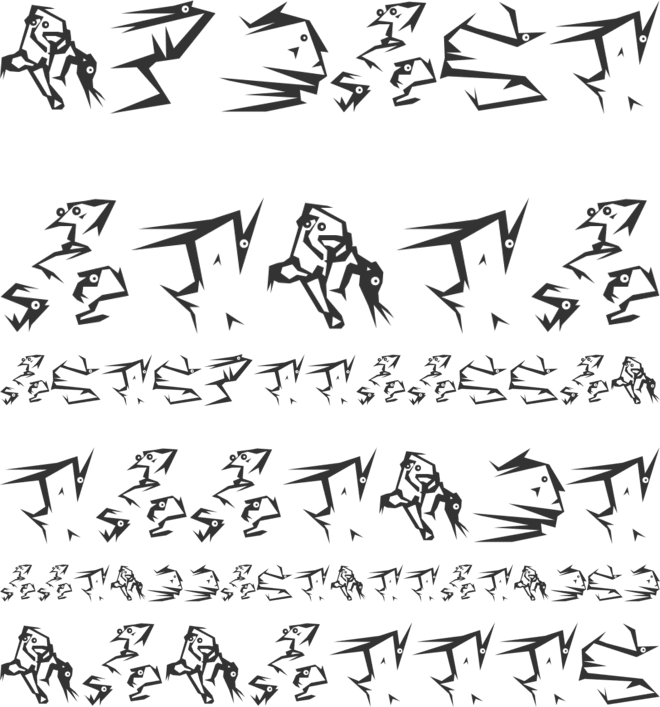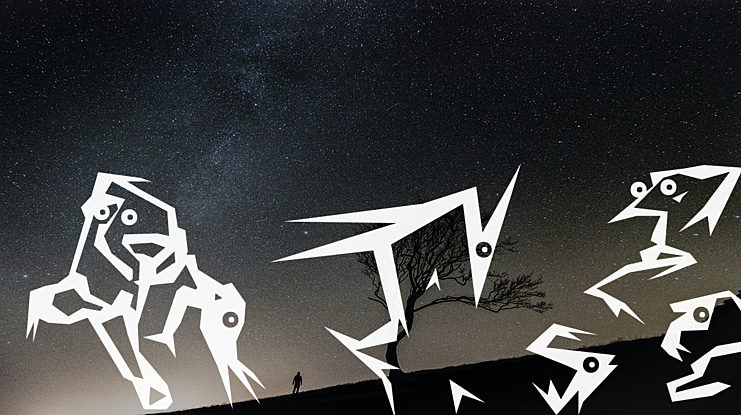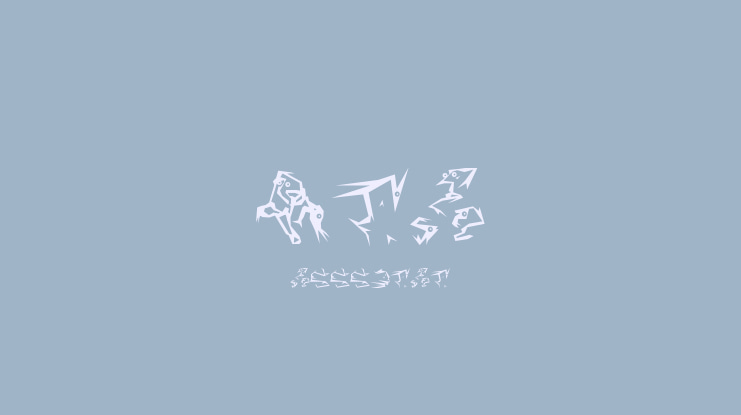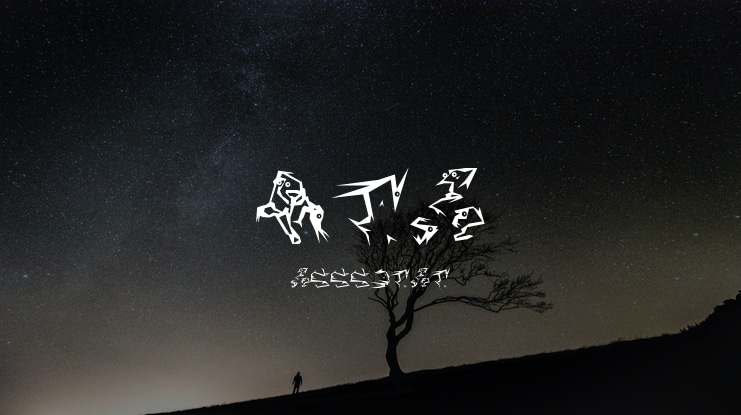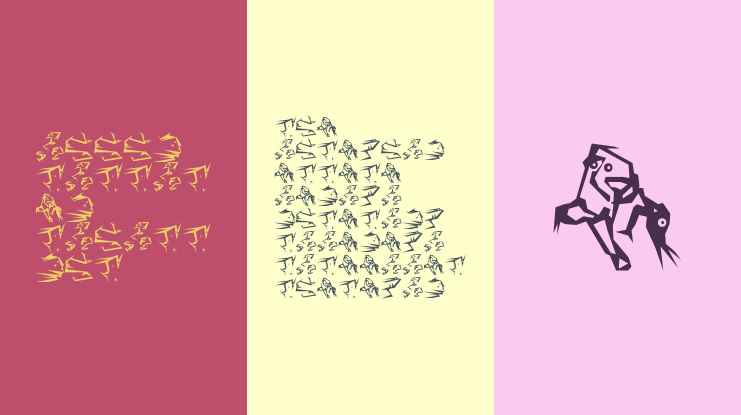
XamStern Font
Font name is anagramm for Max Ernst, surrealistic german painter, working in France & USA. (c) Manfred Klein. Signs with respect for Max 22-3-94, rev.4-04